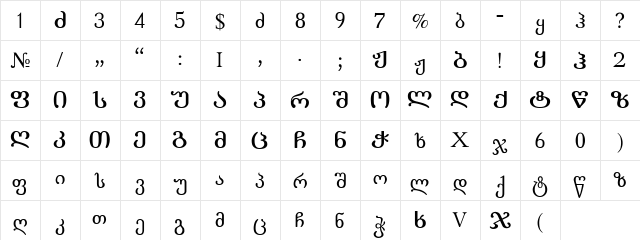
LITERATURULY A&V Regular
Design Context for LITERATURULY A&V Typeface
LITERATURULY A&V is a composed and adaptable typeface that performs quietly and consistently across a wide range of design contexts.